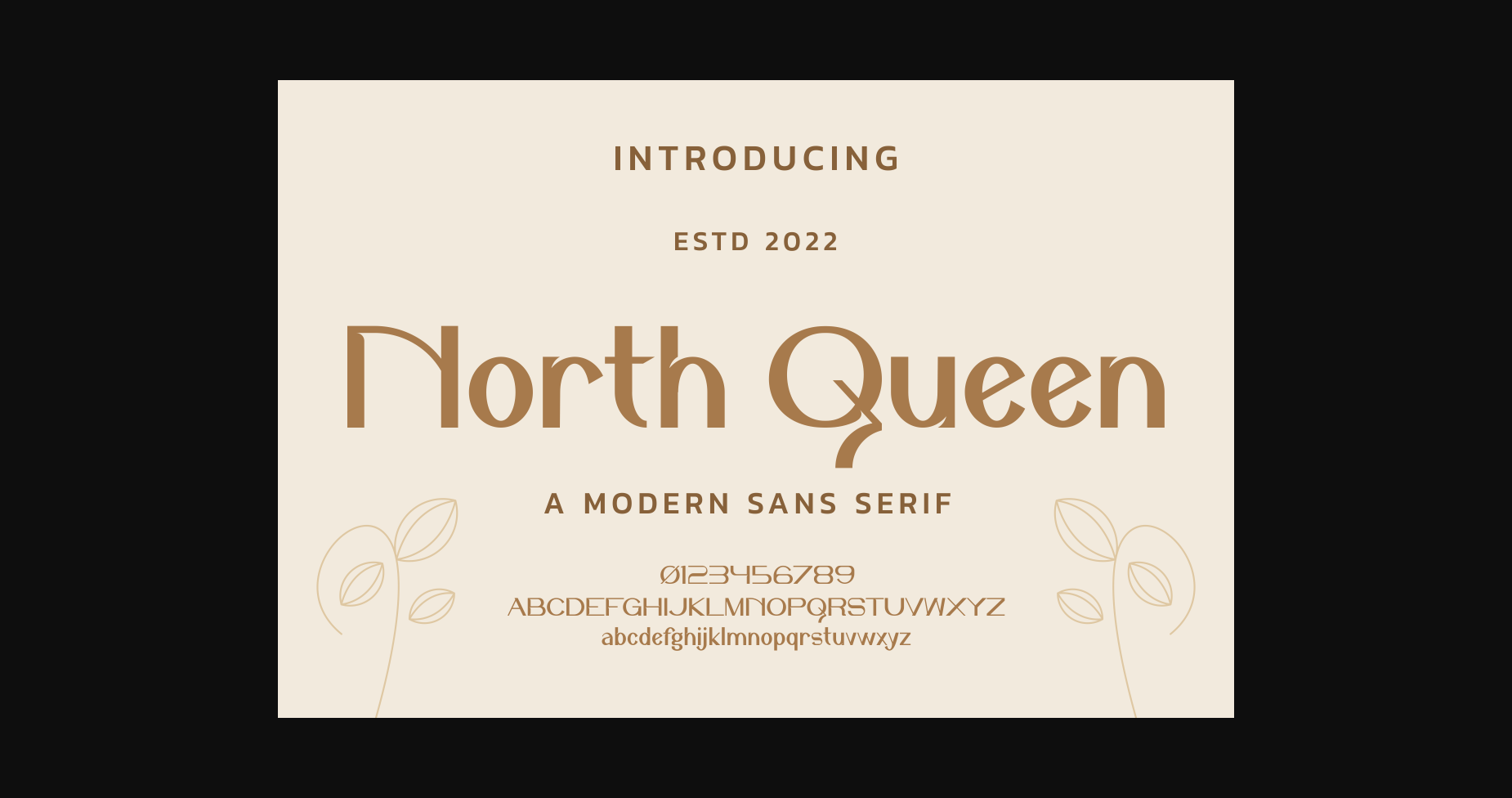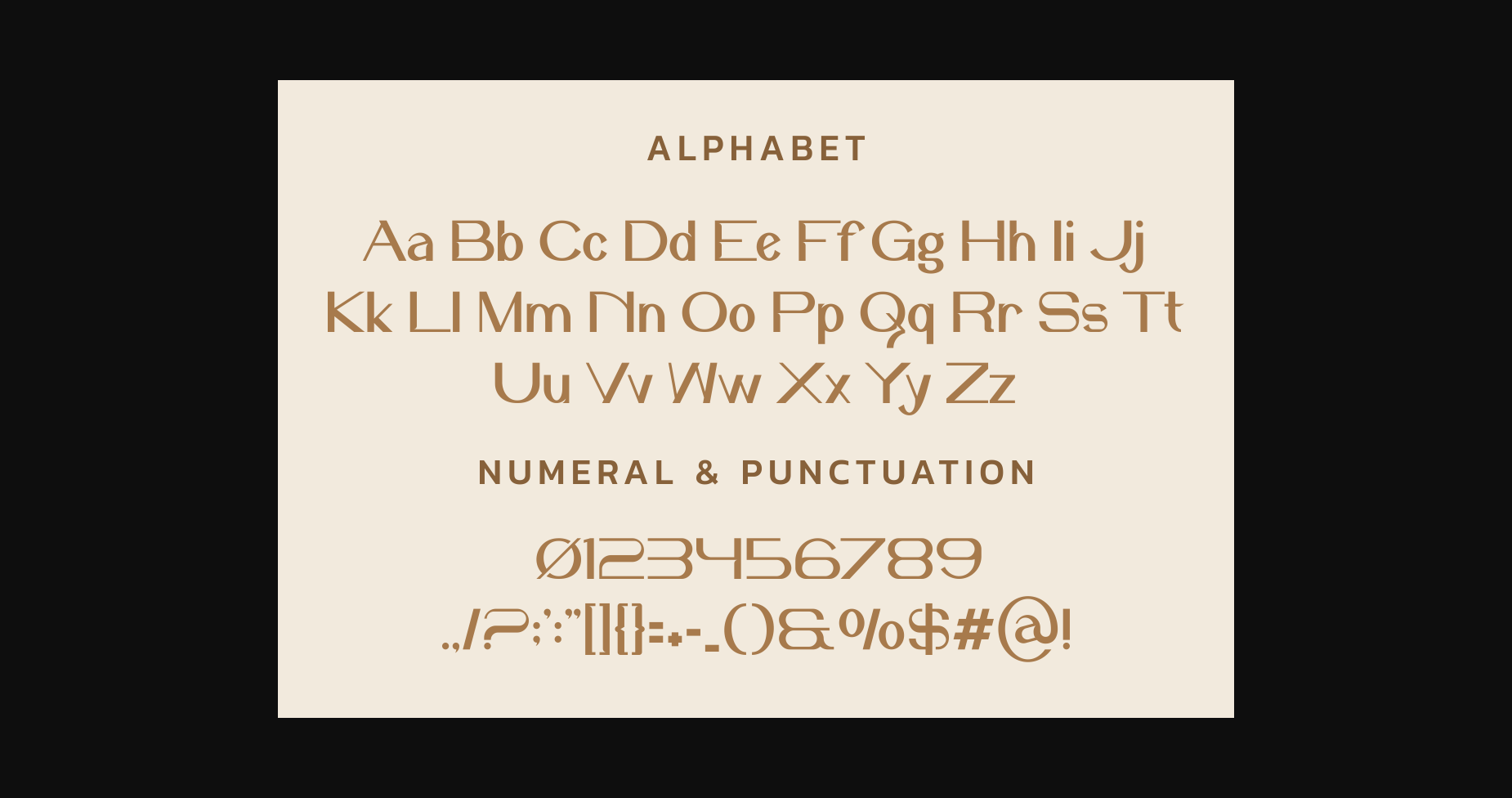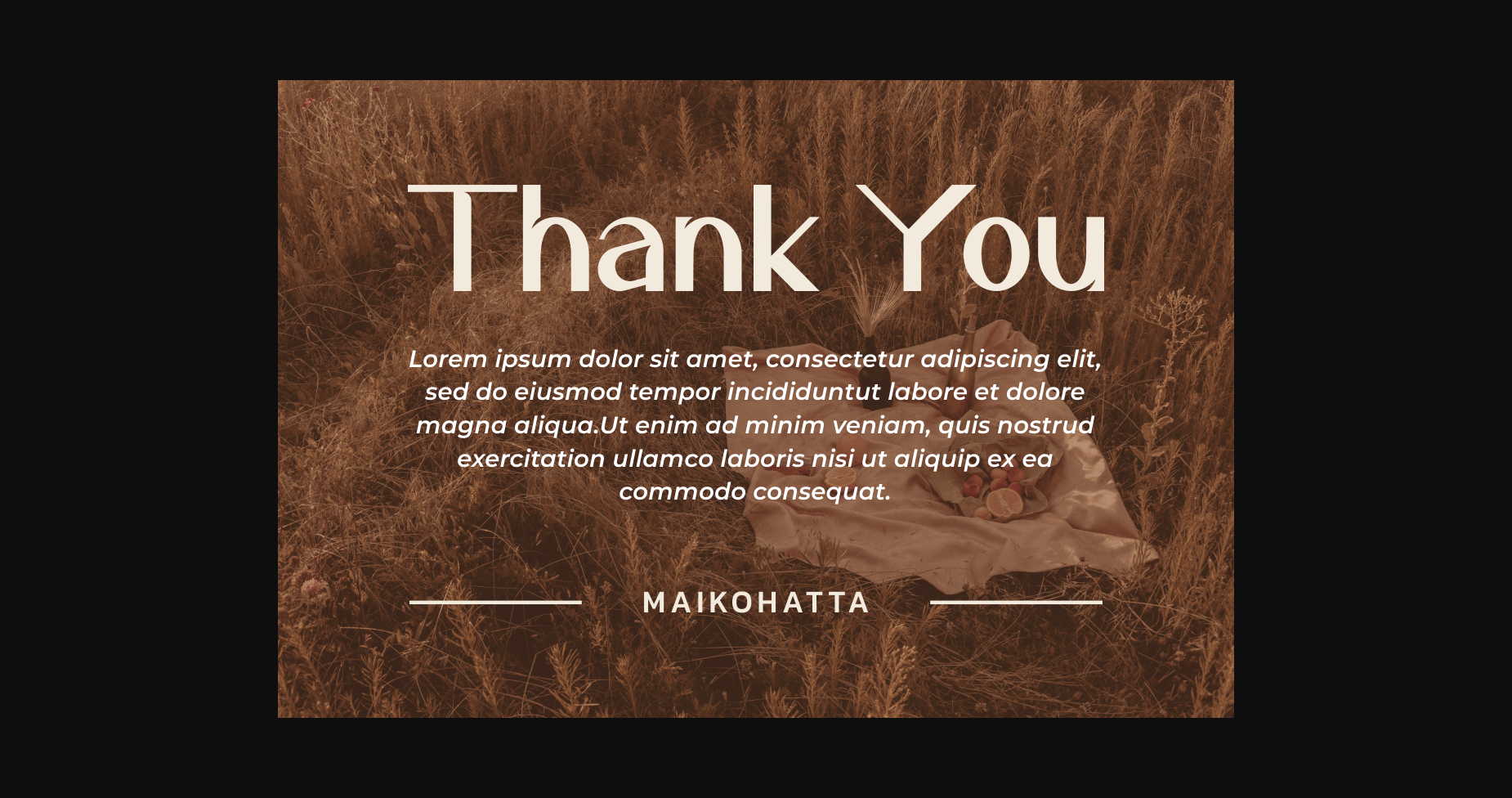
North Queen Font
About North Queen Font
North Queen creates a modern, sophisticated, professional, and eye-catching look. It’s perfect for contemporary designs, digital media, advertising, and more.